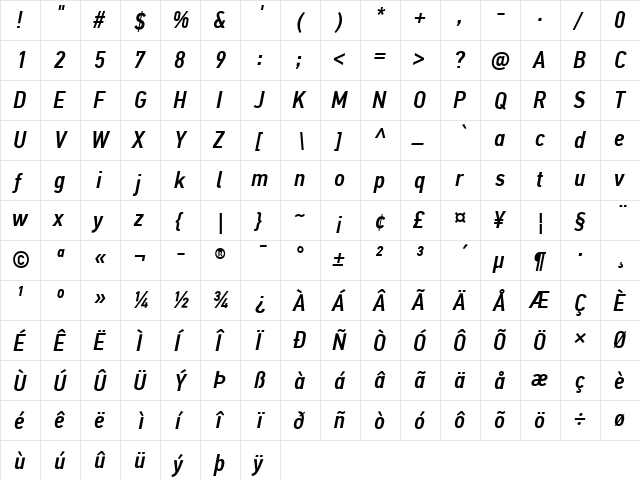
PF Din Text Cond Pro Medium Italic Font Preview
Design Context for PF Din Text Cond Pro Typeface
PF Din Text Cond Pro offers clean, dependable letterforms without strong stylistic allegiance, making it a practical choice for designers who need flexibility. The slanted form adds forward momentum and visual energy. Its narrow stance lets it pack a punch even in space-constrained designs.
Pro Tip: Try PF Din Text Cond Pro for annotation and caption copy alongside an upright companion — the contrast in angle creates a dynamic but ordered typographic system.